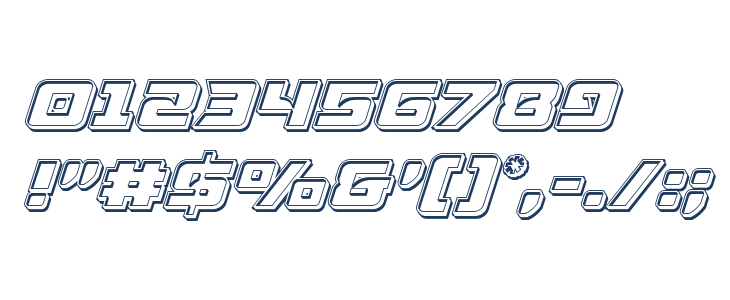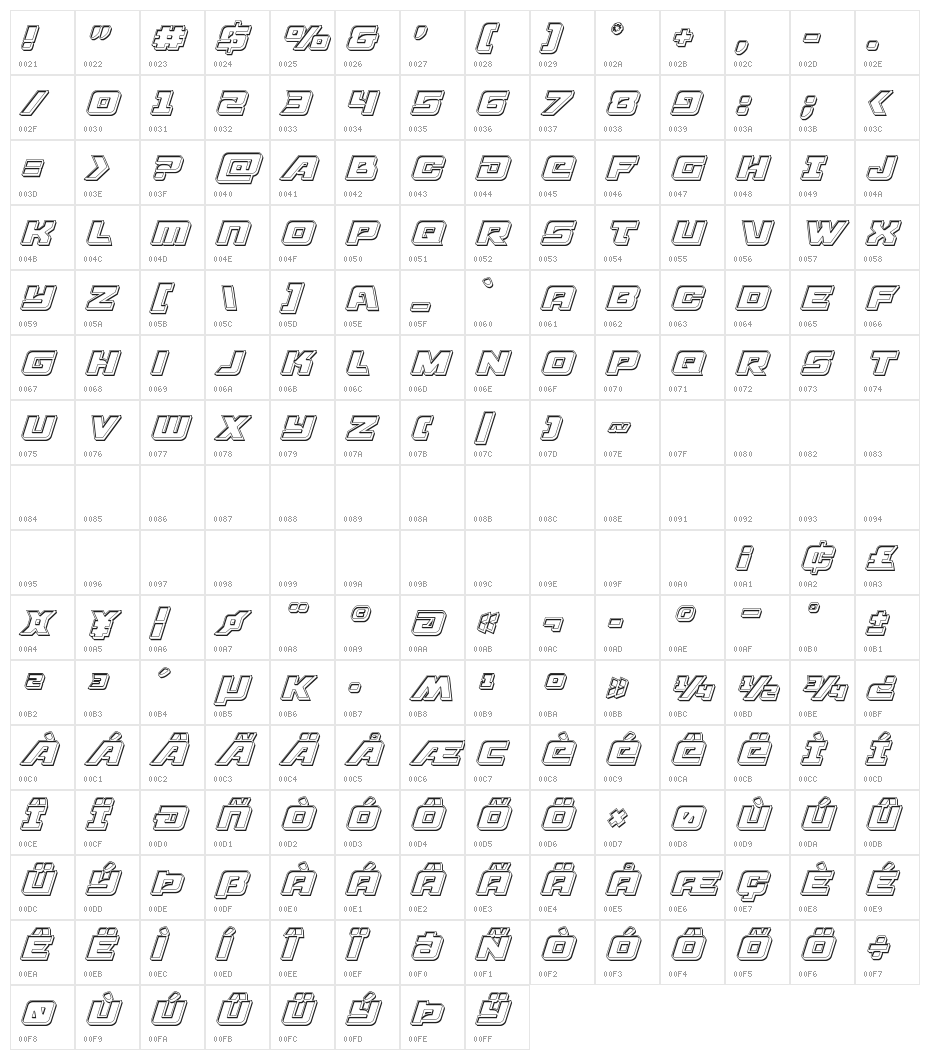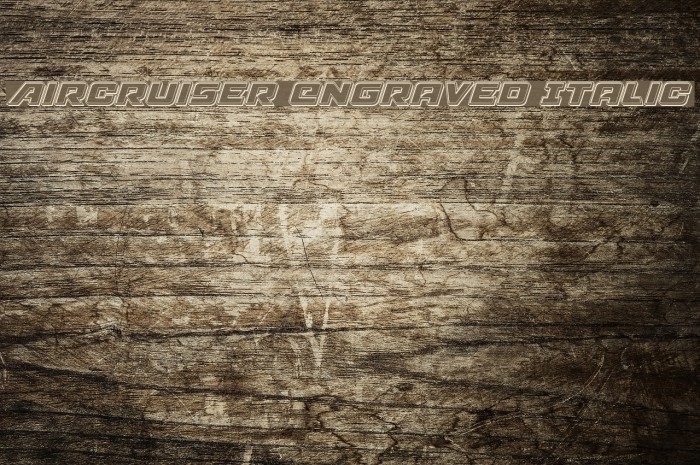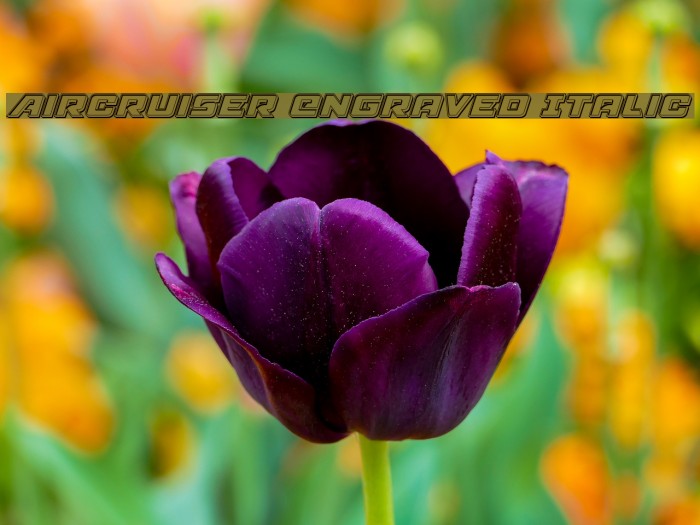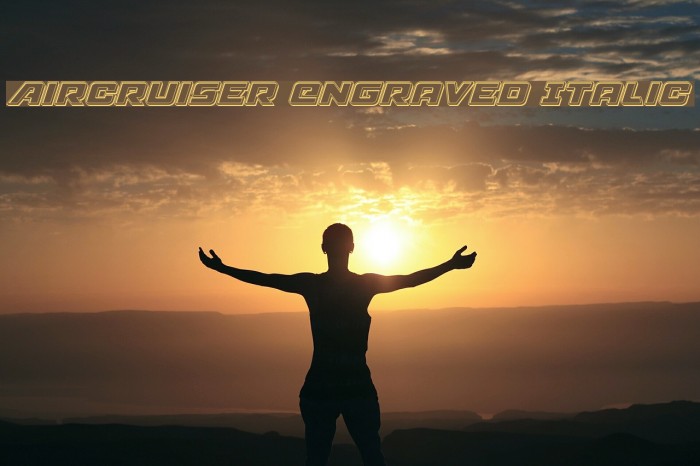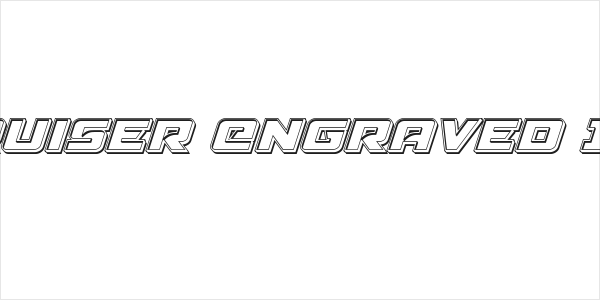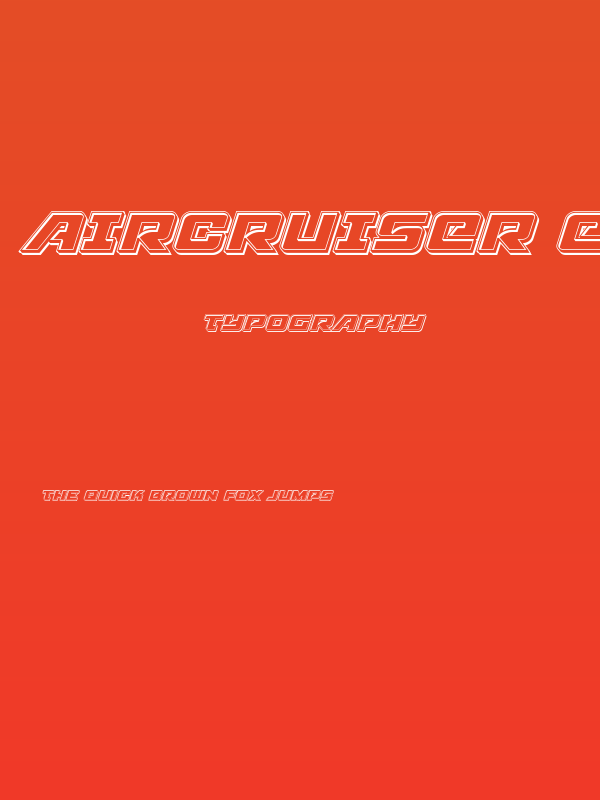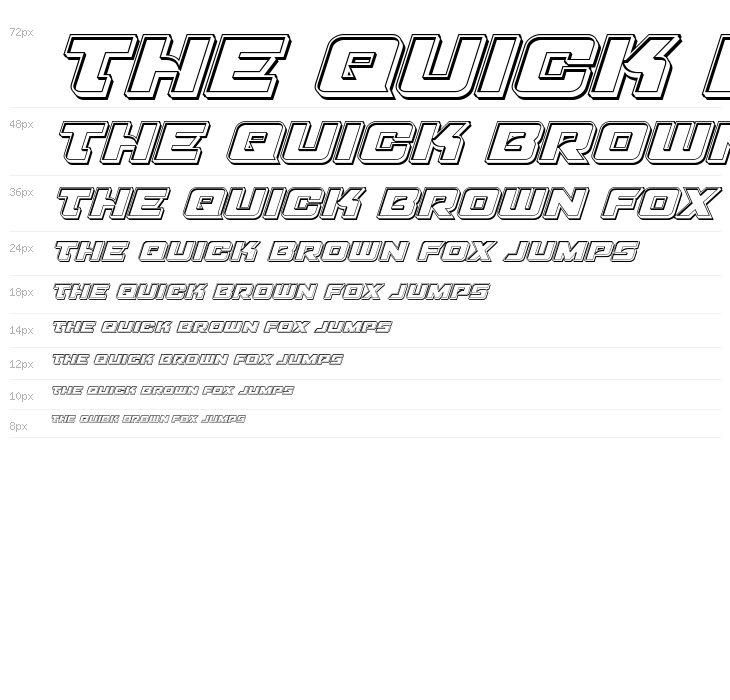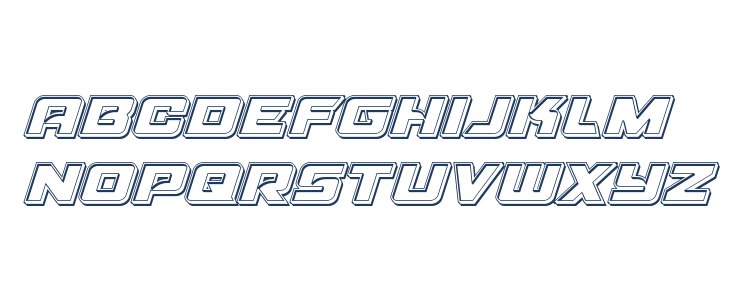
Aircruiser Engraved Italic Font
Aircruiser Engraved Italic Description
This font features a bold, italicized style with a unique engraved outline that gives it a three-dimensional appearance. The characters are designed with a futuristic and dynamic flair, making them stand out with their sharp angles and clean lines. The uppercase and lowercase letters maintain a consistent style, with a slight slant that enhances their italic nature. The numbers and special characters are crafted to match the overall aesthetic, ensuring uniformity across all elements. This font's distinct engraved look adds depth and character, making it ideal for projects that require a modern and eye-catching typeface.
Proposed ProjectsIdeal for futuristic designs, technology branding, video game titles, and sci-fi themed projects.